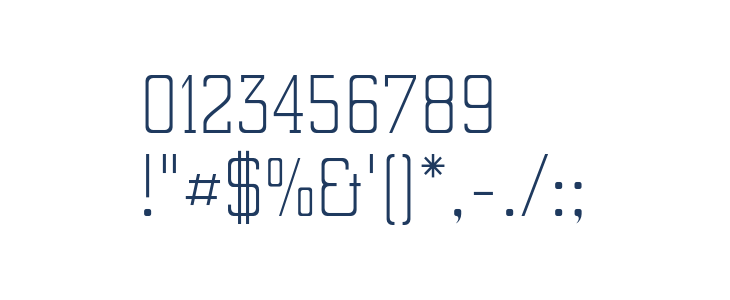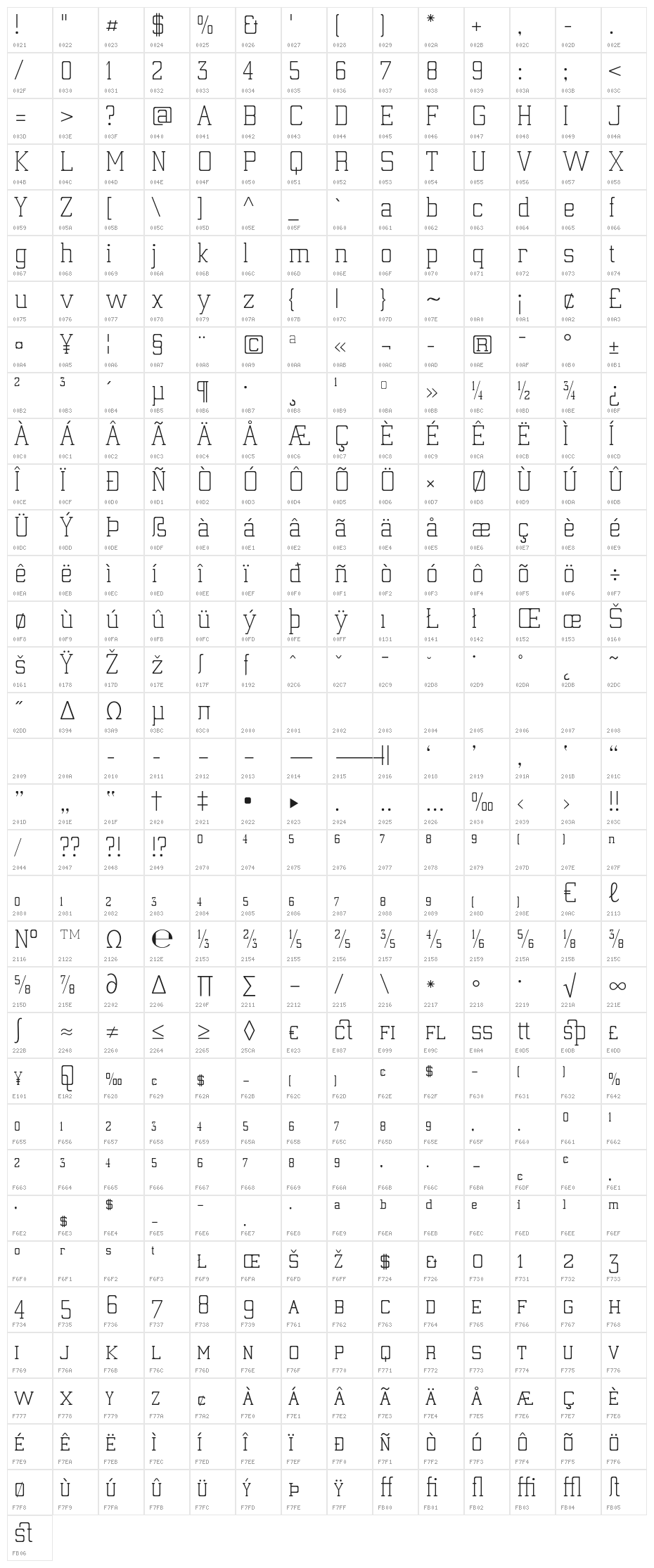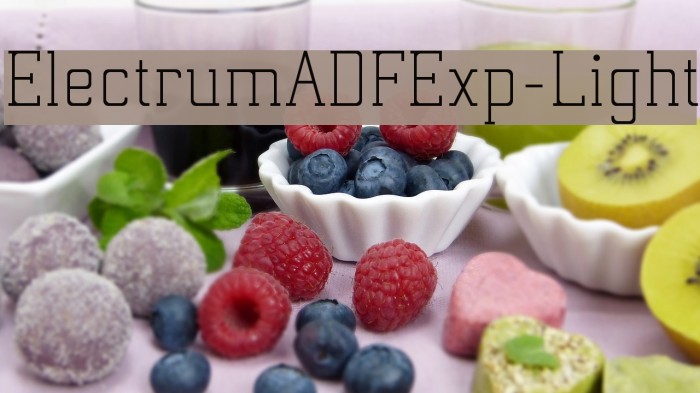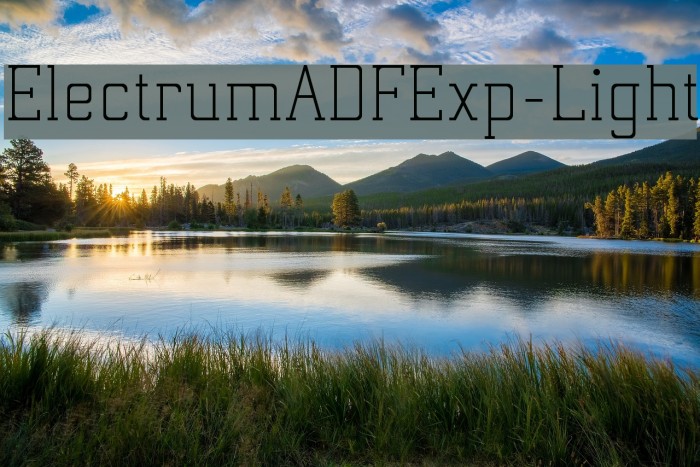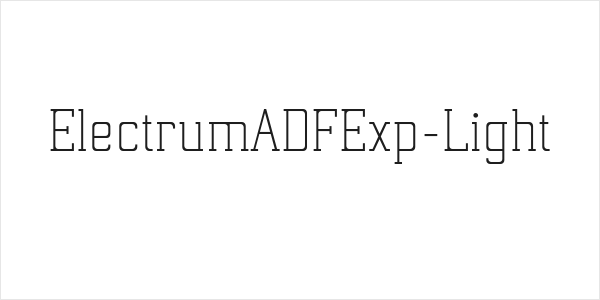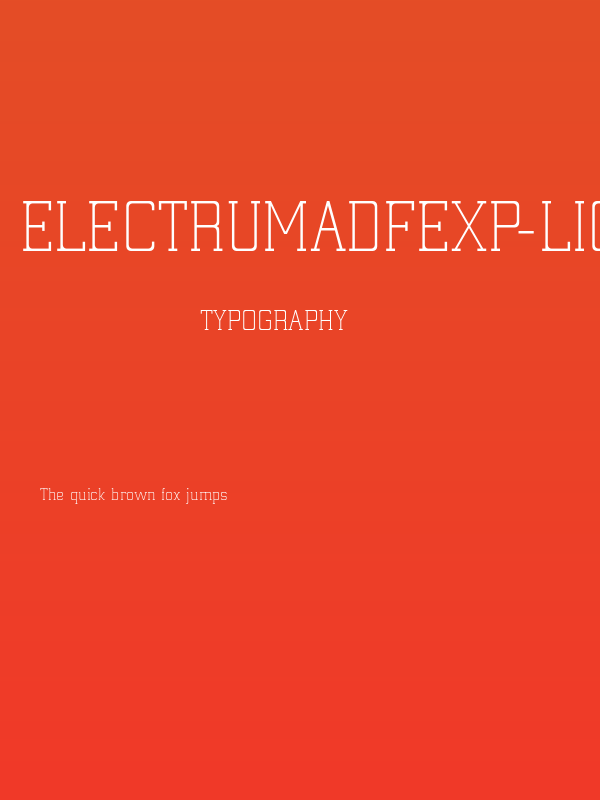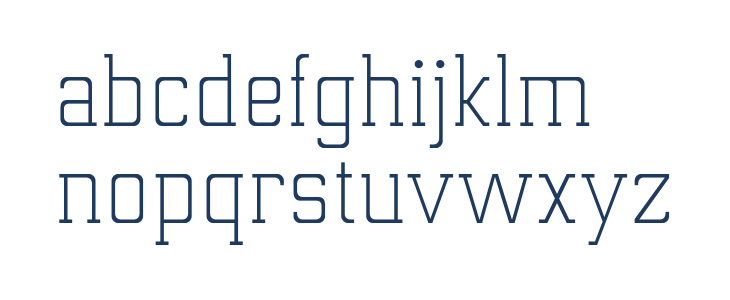
ElectrumADFExp-Light Font
ElectrumADFExp-Light Description
This font features a clean, geometric design with a modern aesthetic. The characters are constructed with uniform stroke widths, giving it a monospaced appearance. The uppercase letters are tall and slightly condensed, while the lowercase letters maintain a consistent height, enhancing readability. The numerals are distinct and align well with the overall style, making them suitable for technical or digital applications. Special characters are clearly defined, adding versatility to the font's use. The overall look is sleek and professional, suitable for a variety of design projects.
Proposed ProjectsIdeal for technical documents, digital interfaces, coding environments, and minimalist design projects.